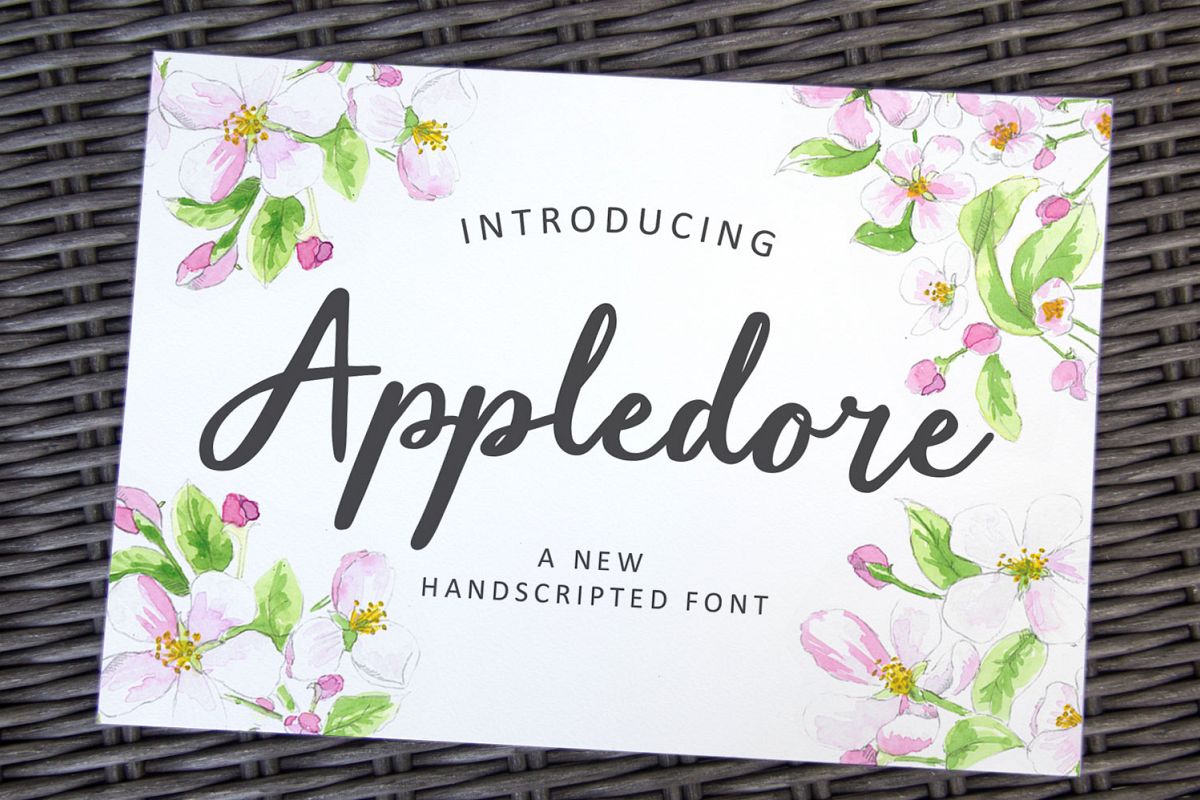
Appledore Script
Introducing Appledore - a modern hand scripted font.Great for branding, stationery design, wedding invitations, greeting cards, social media, packaging, prints and more!Appledore has a variety of extra OpenType font features to create a more handwritten feel including stylistic alternates and ligatures.
Multilingual support is also included for Western European languages.